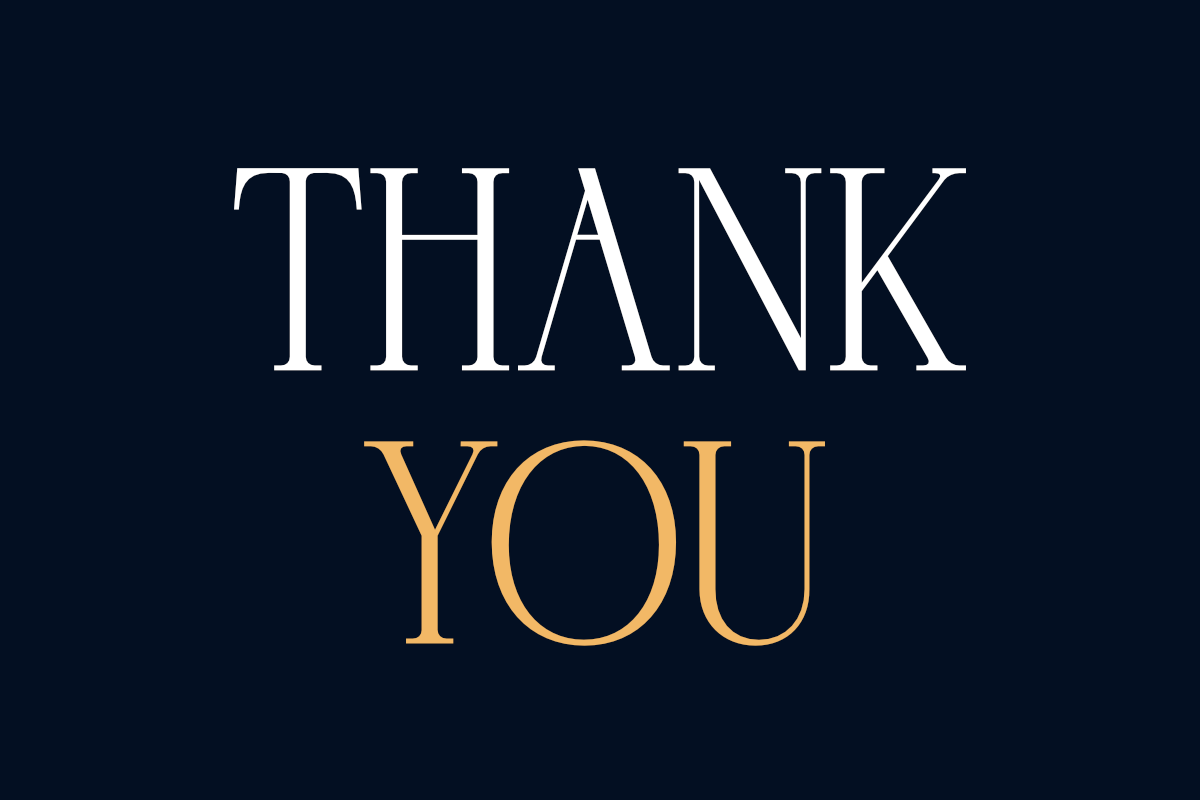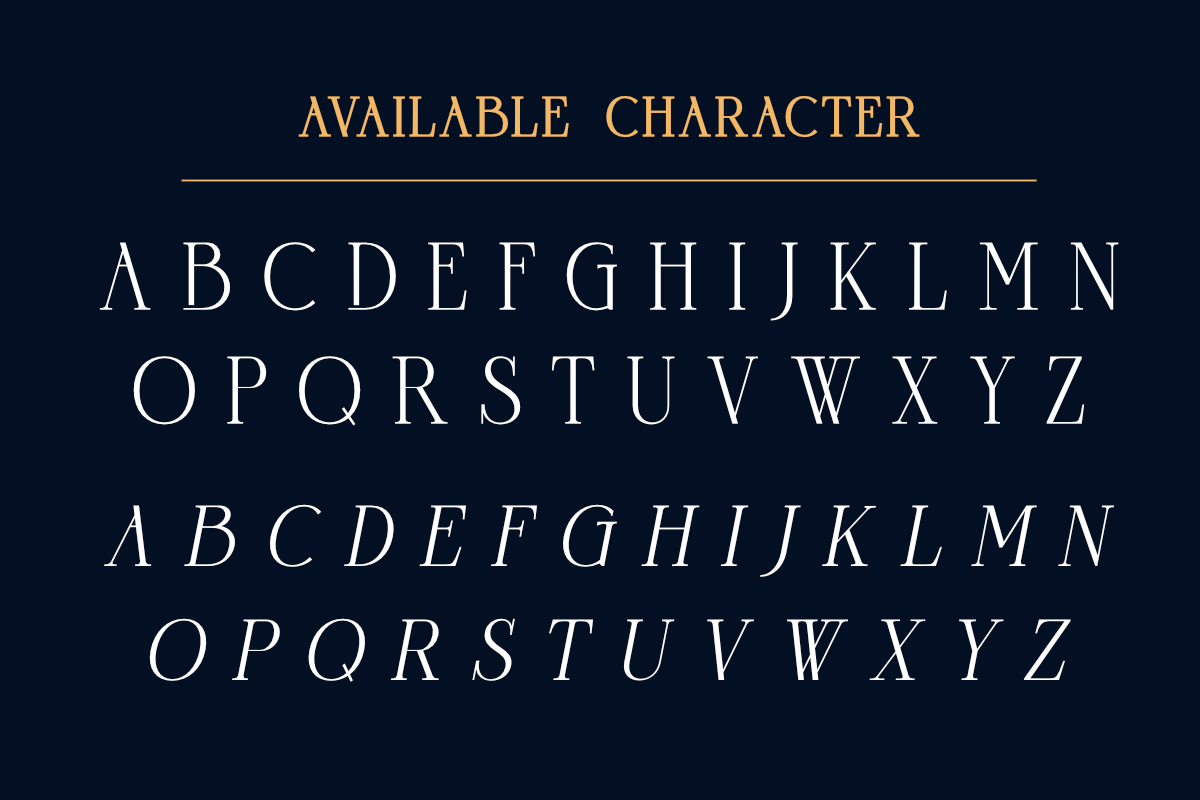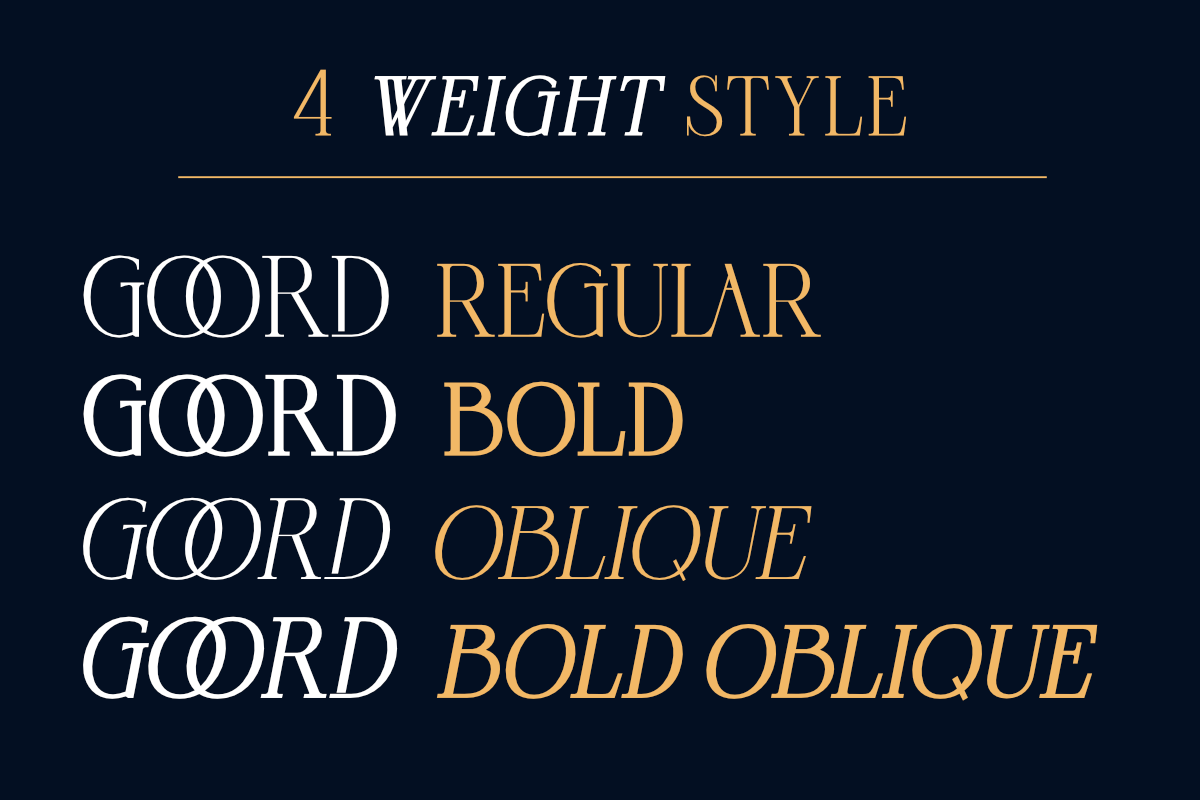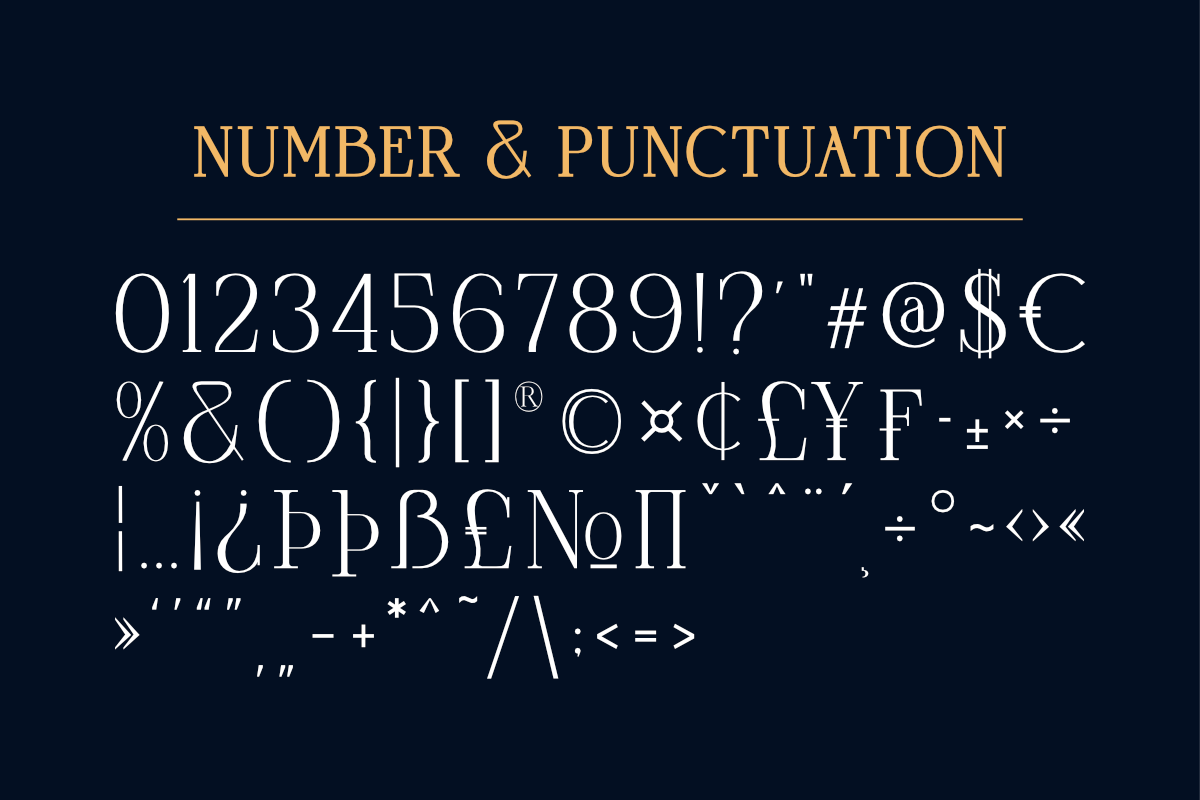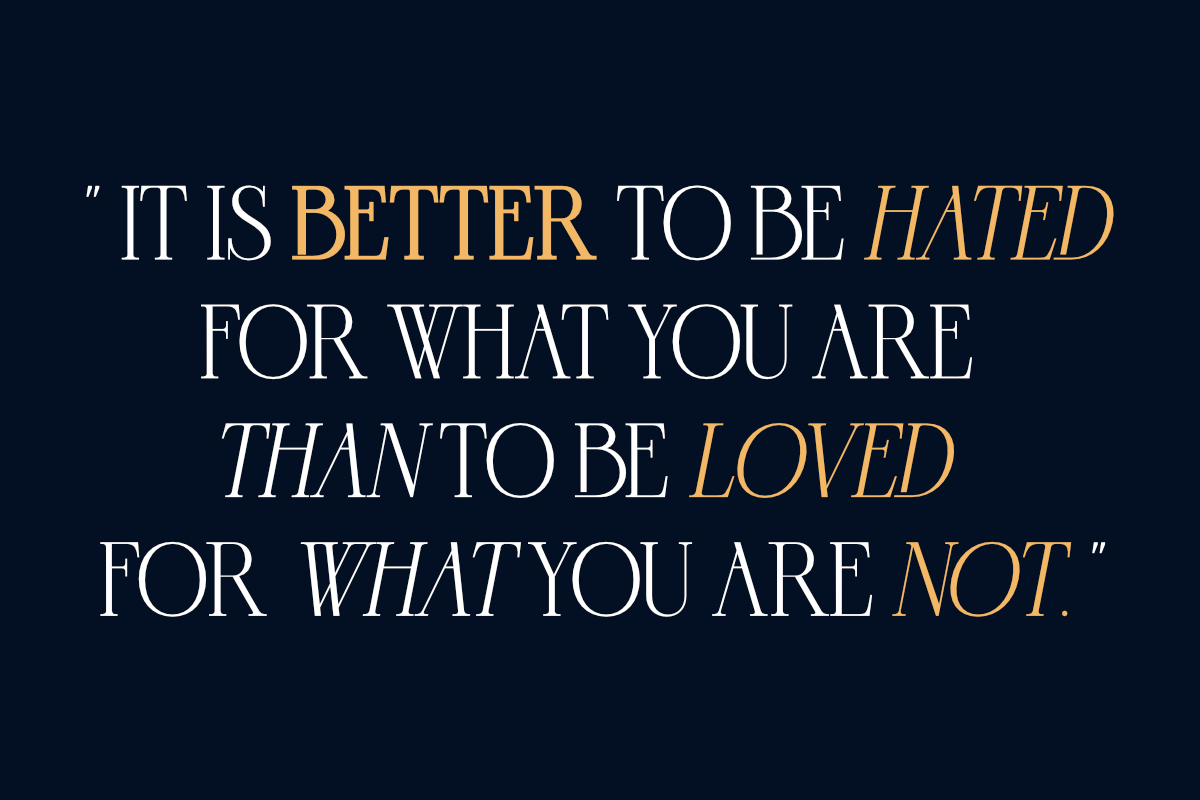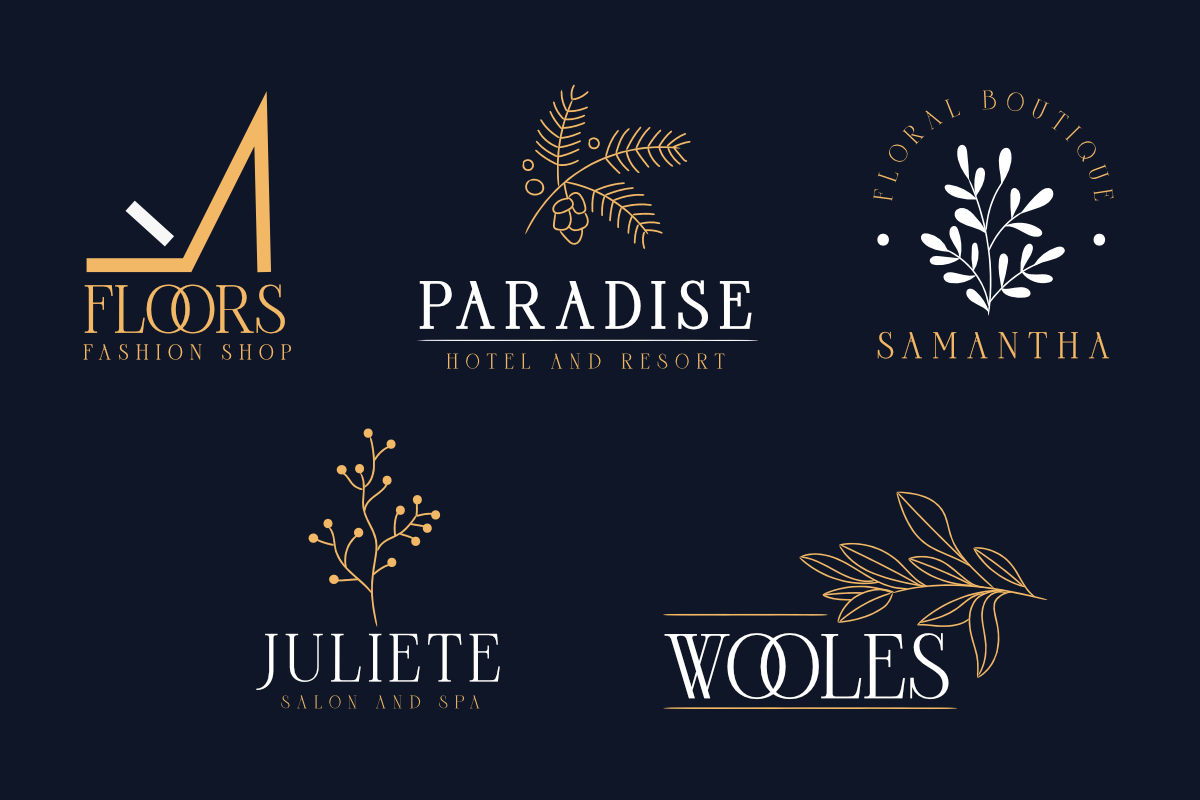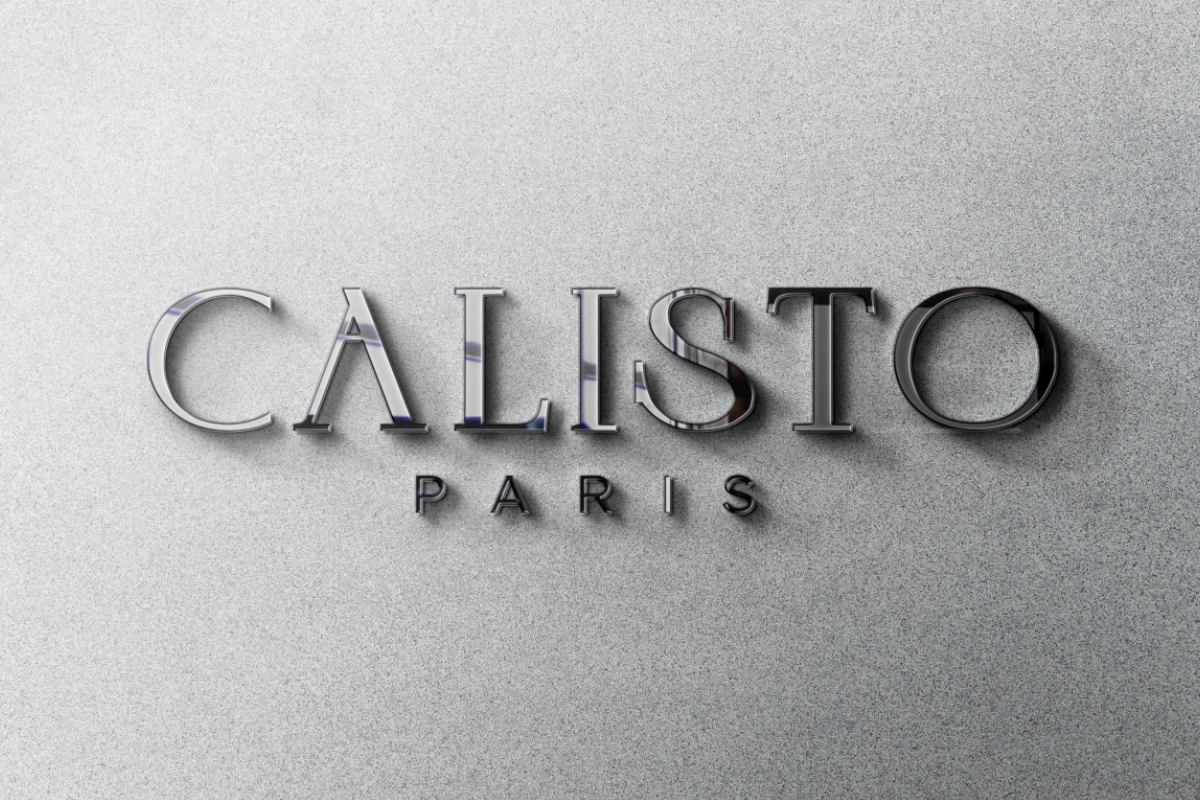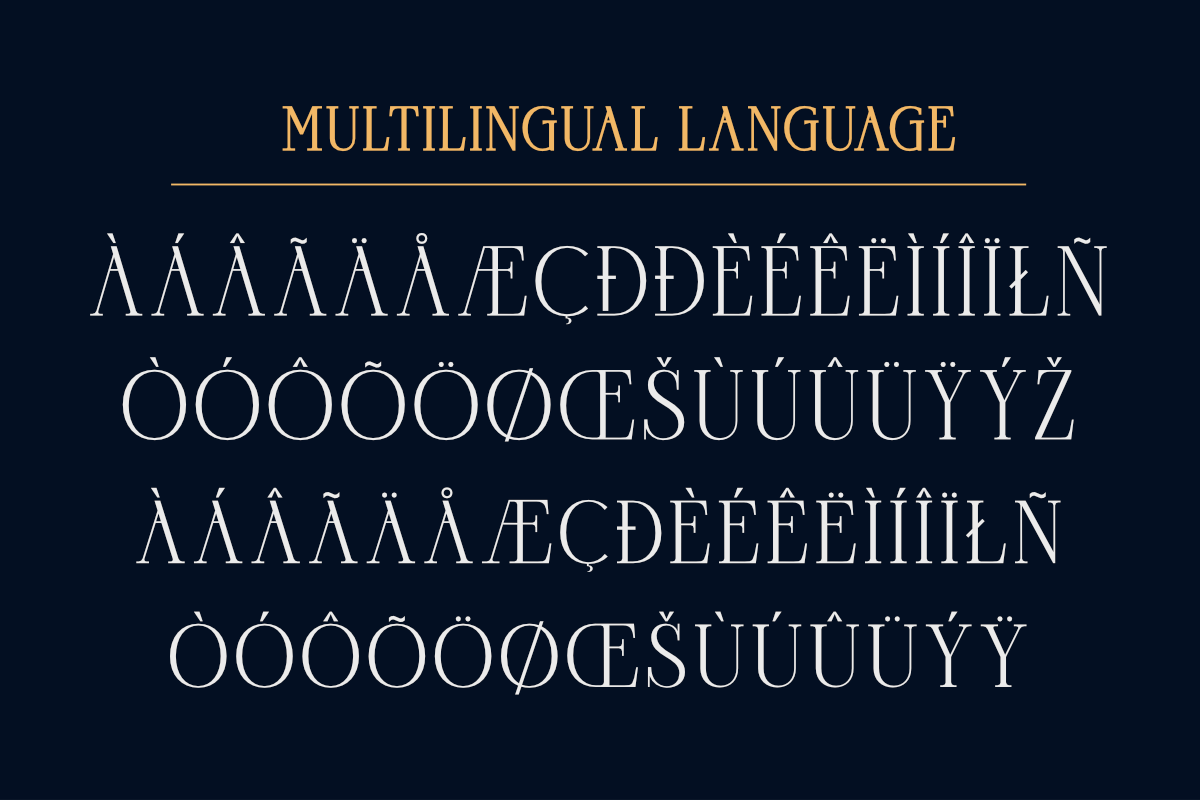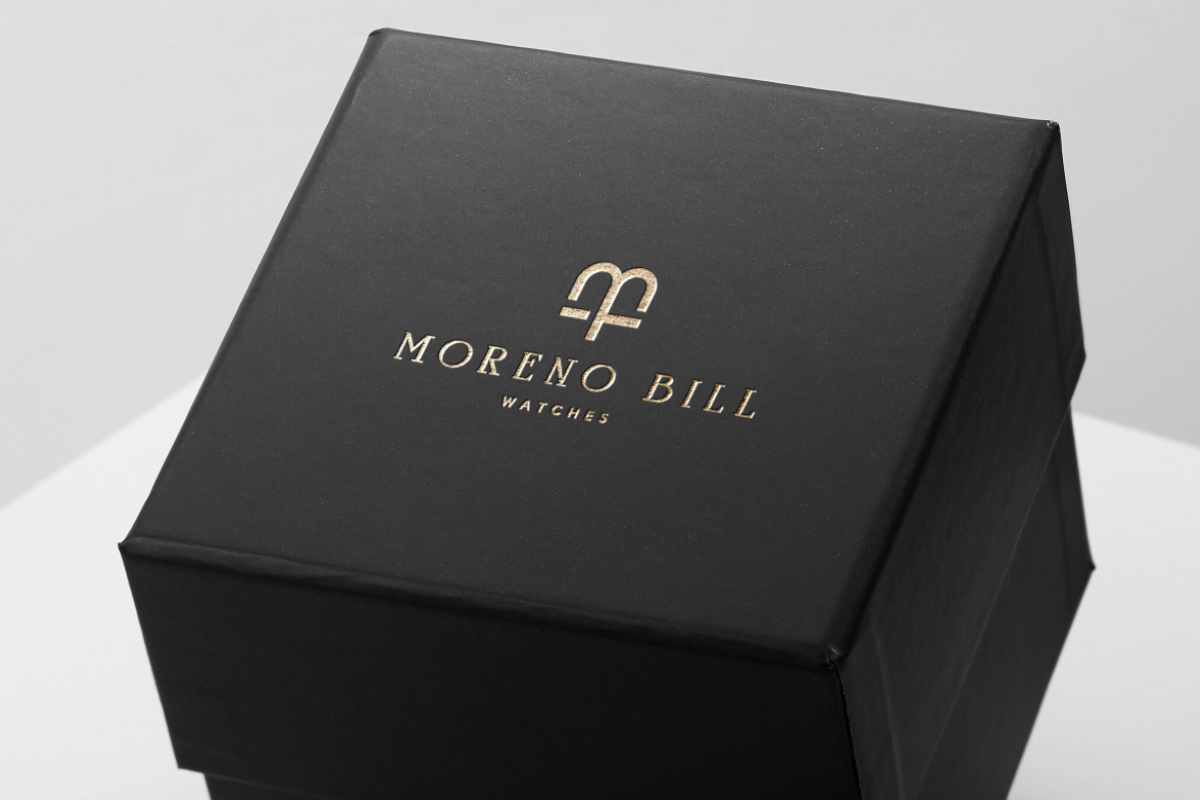
Goord - Modern Serif Family
Goord is a classic style serif typeface that has been modernised with its unique curves and cut-ins making it one of the most memorable caps fonts on the market. Already matched up and ready to be used together for your next design! For those of you who are needing a touch of elegant, stylish, classy, chic and modernity for your designs, this font was created for you!
This font is both modern and nostalgic and works great for logos, mastheads and pull quotes. It pairs beautifully with a classic serif ( like Bakserville used in the previews ) or a minimal sans serif. Goord comes with numbers, punctuation plus multilingual accents and letters. Every letter has an alternative style (switch between caps and regular to see) Unique letters guaranteed to stand out
Goord regular
Goord Oblique
Goord Bold
Goord Bold Oblique
Numerals & Punctuations
Accents/Multilingual characters
ligature